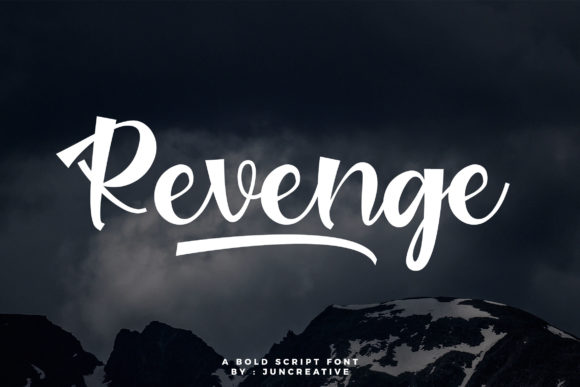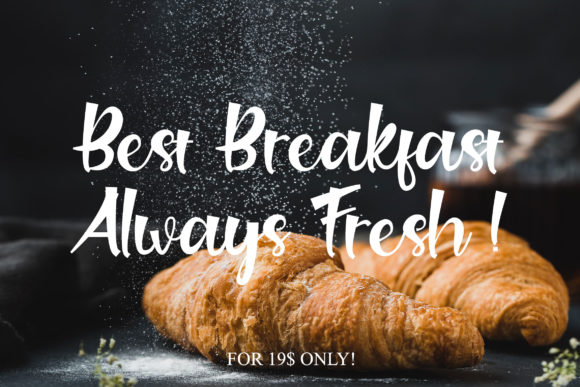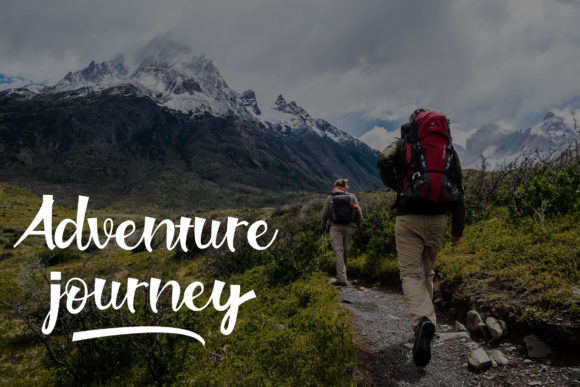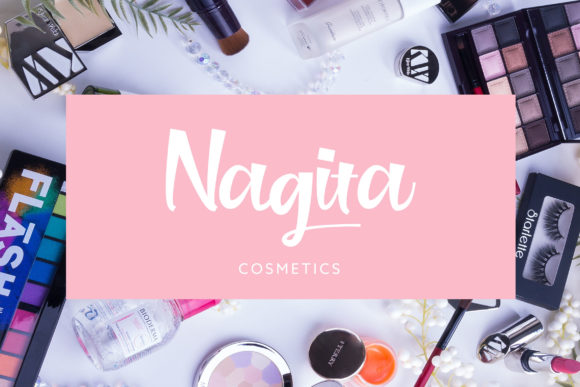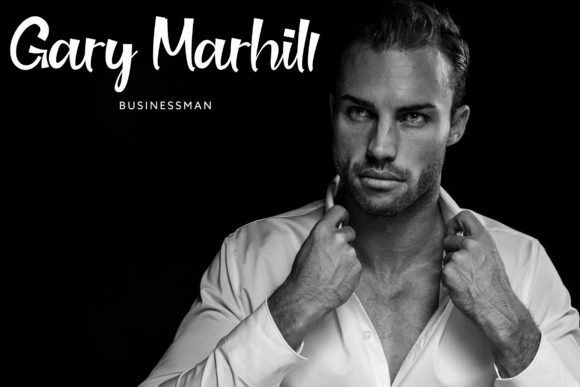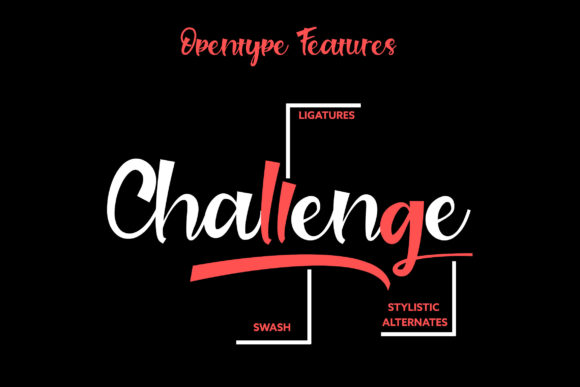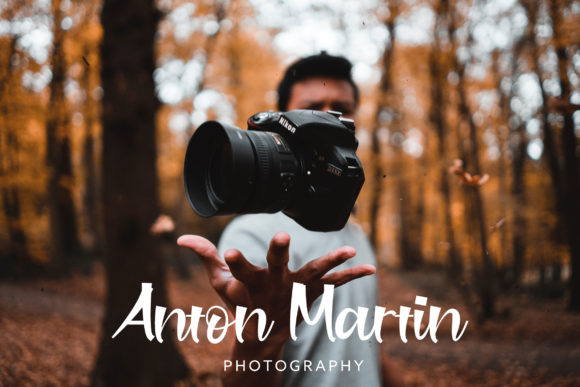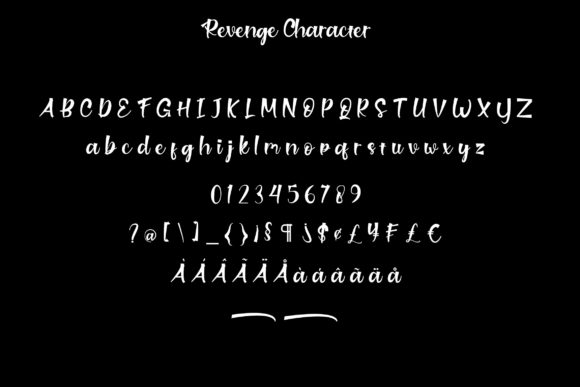
Revenge Font
About Revenge Font
Revenge is a cute and casual handwritten font with an incredibly friendly feel. It features gorgeous swashes and ligatures that make this script incredibly versatile. Whether you’re looking for fonts for Instagram or calligraphy scripts for DIY projects, Revenge will turn any creative idea into a true piece of art!